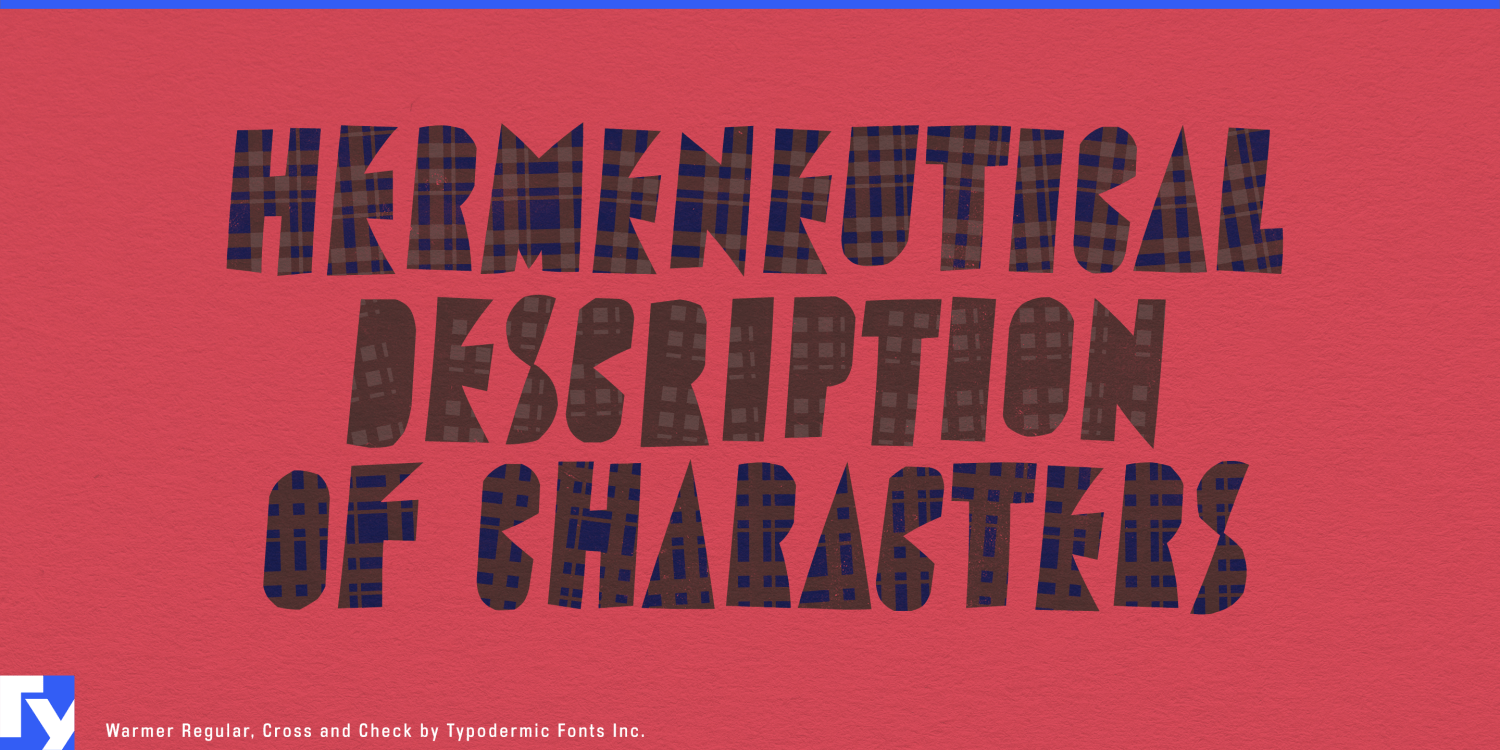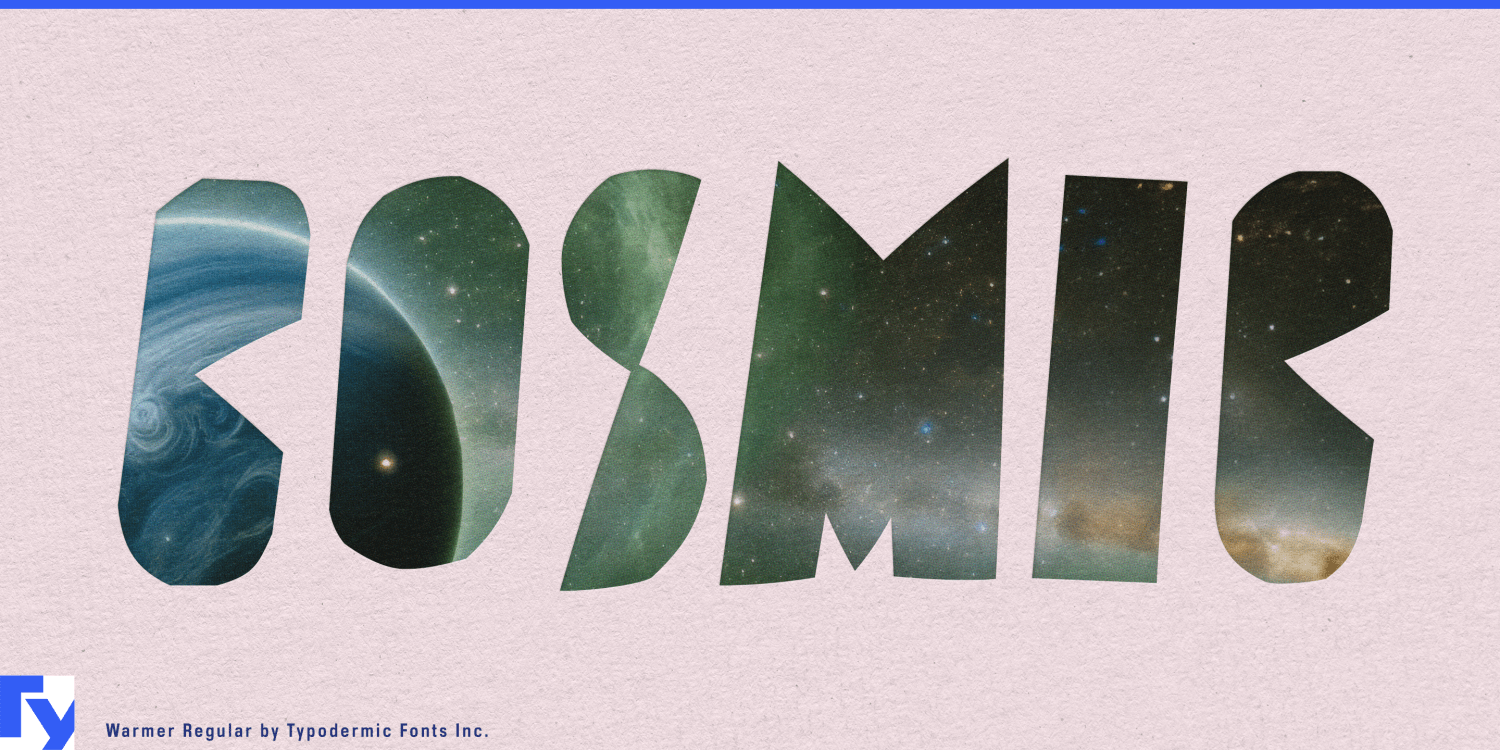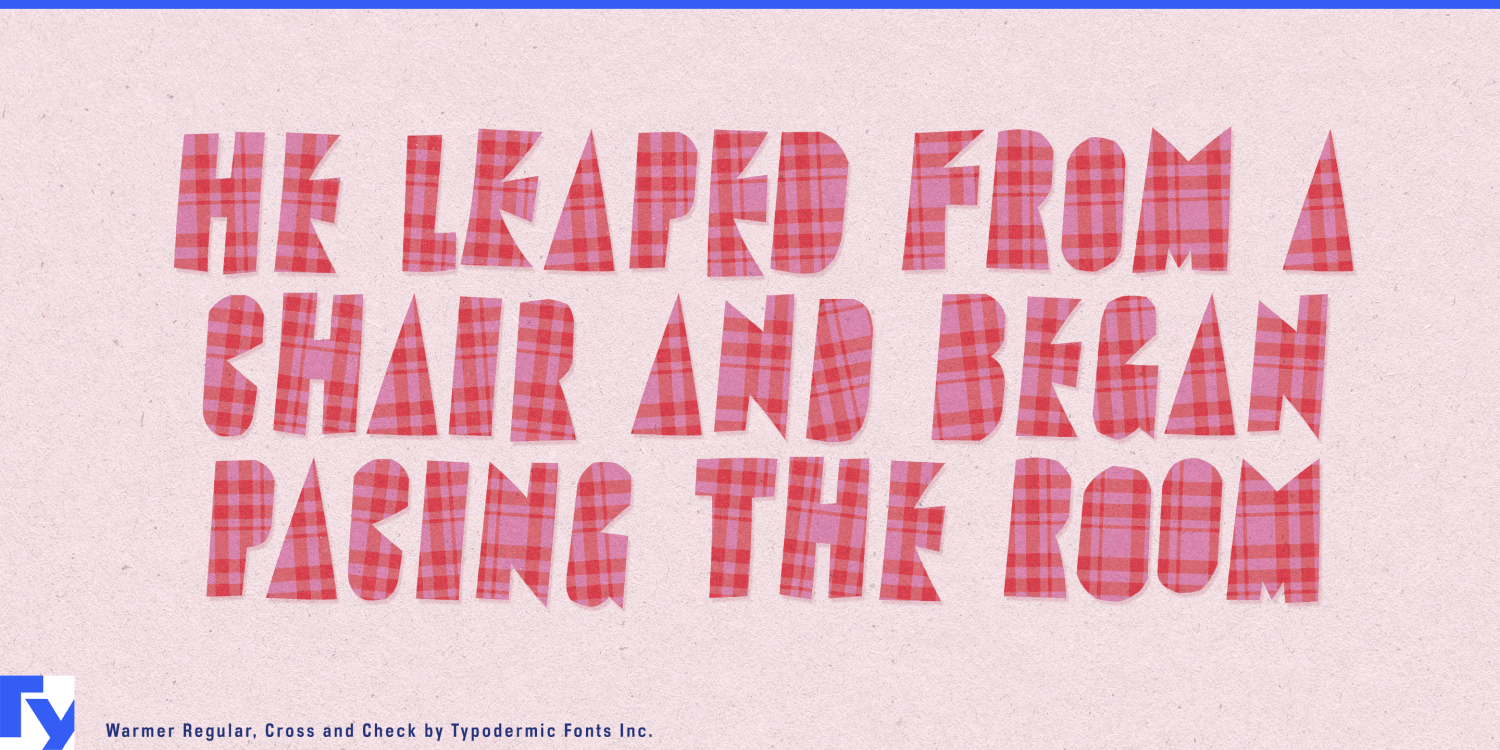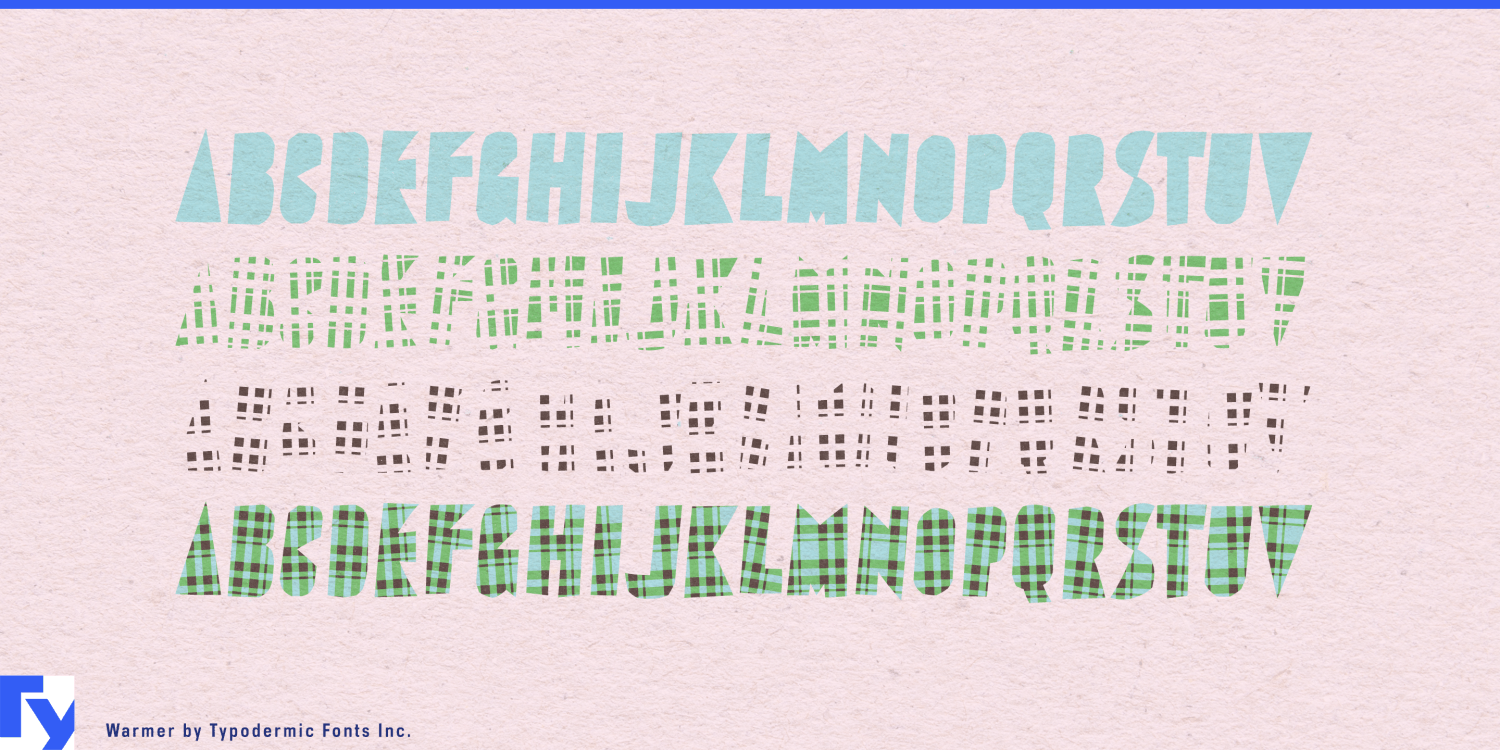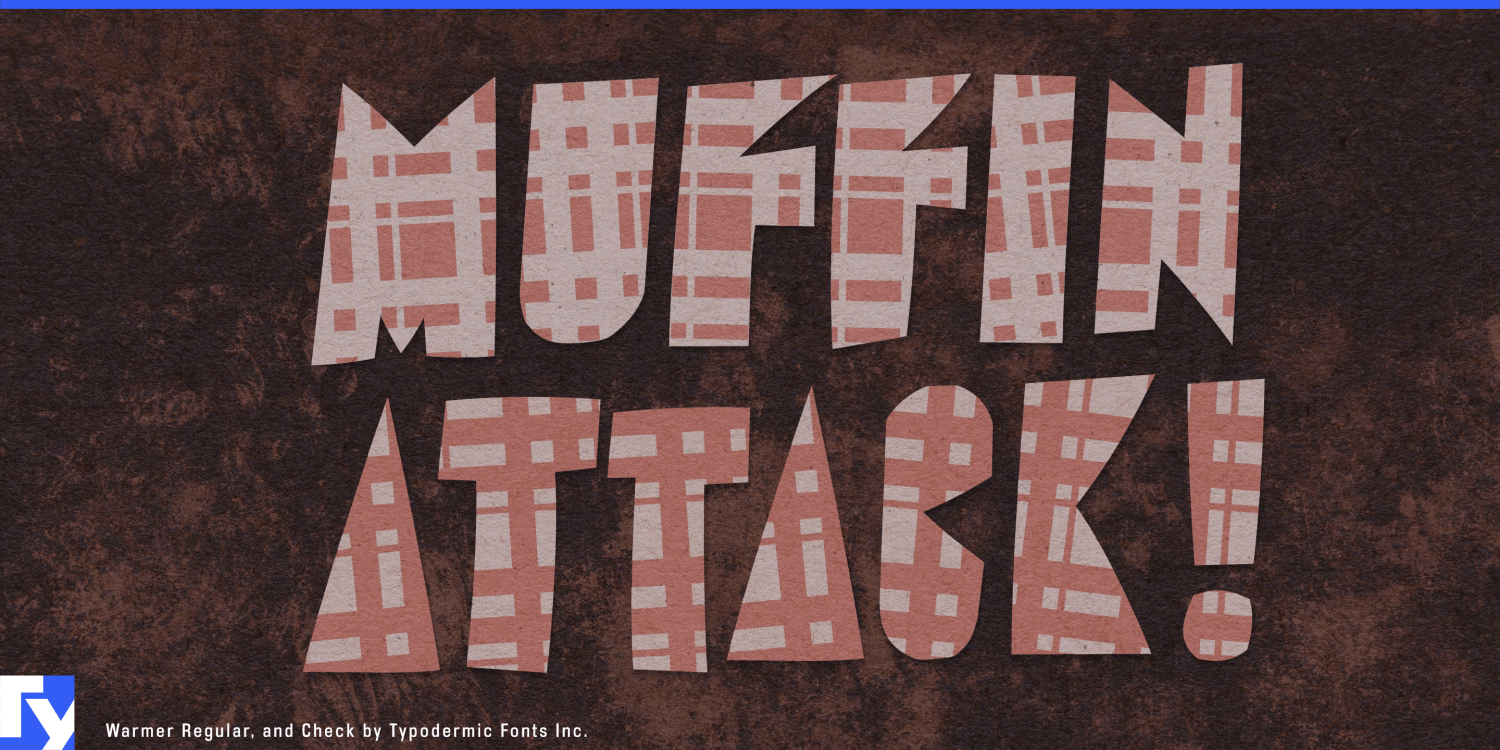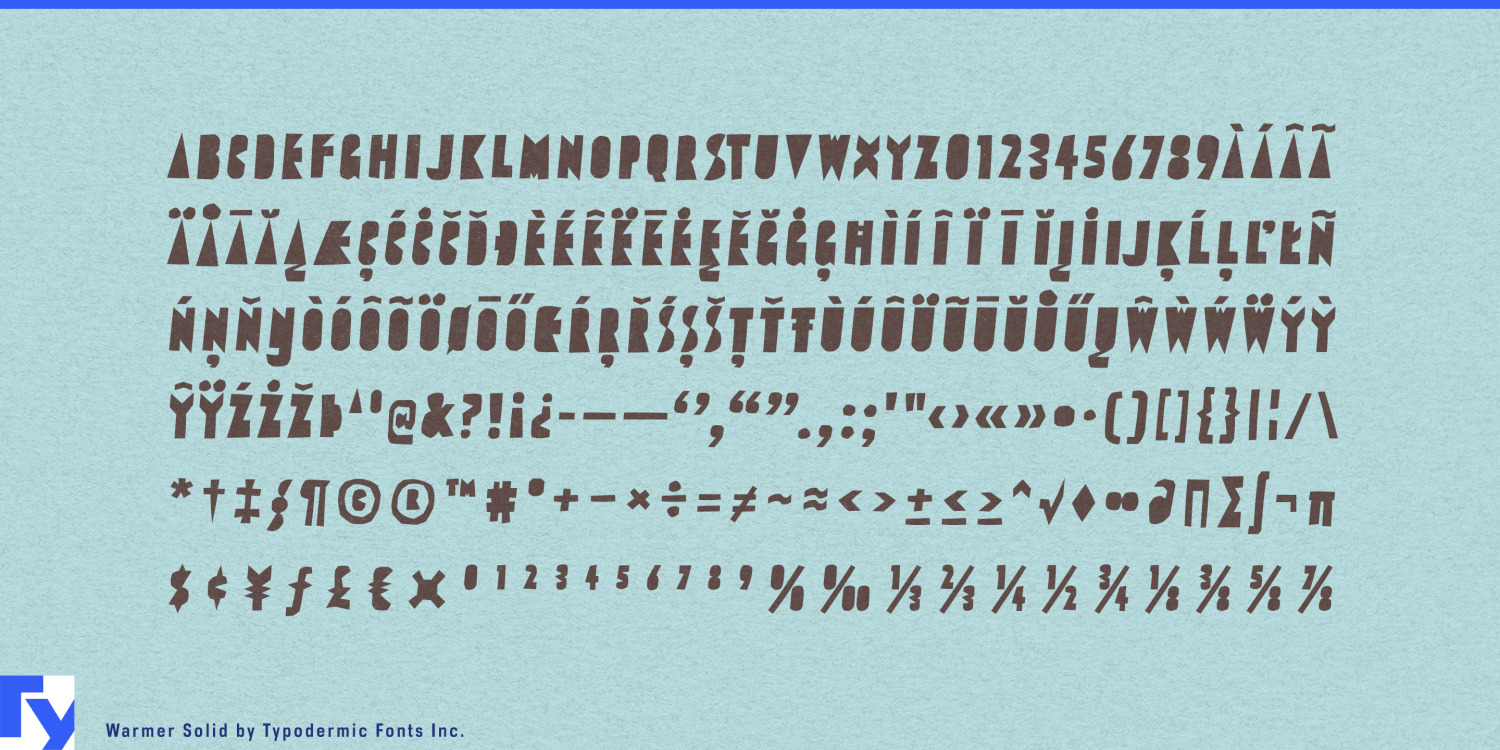
Warmer
Font Family by Typodermic
Plaid is easy to add to lettering and surprisingly hard to make convincing. Drop a check pattern inside an ordinary font and it often looks applied afterward, with the letters and textile having little to do with one another. Warmer takes a more integrated approach. Its Solid style supplies narrow, counterless display lettering; companion Cross and Check layers stack with it to build a woven pattern directly into the typography.
That makes Warmer especially useful for commercial textiles and interior collections. Upholstery manufacturers, contract-fabric companies, carpet and rug brands, wool blanket makers, acoustic-textile systems, and hospitality-fabric suppliers can use it for collection names, swatch-book covers, sample boxes, showroom walls, trade-fair graphics, product launches, and campaign headlines. Here the plaid is more than decoration; the typography participates in the same material language as the product being sold.
Apparel provides another natural setting, particularly autumn and winter collections built around checks, wool, flannel, and substantial fabrics. Overshirts, blanket jackets, wool coats, checked tailoring, scarves, heritage workwear, and plaid accessories can use Warmer for collection titles, shop windows, hangtags, shopping bags, lookbook covers, ecommerce campaigns, and limited-edition packaging. The Solid style can establish the broader identity while the layered versions turn the textile connection up when needed.
Mountain hospitality gives that material quality an environment of its own. Ski hotels, alpine resorts, mountain lodges, après-ski bars, winter restaurants, and cabin properties can use Warmer for seasonal campaigns, restaurant promotions, winter packages, resort merchandise, event graphics, and gift-shop products without relying on snowflakes, fir trees, or crossed skis to establish the mood.
The same logic works for outdoor and heritage soft goods such as wool overshirts, fleece, insulated vests, camp blankets, canvas bags, cold-weather accessories, and durable workwear. Seasonal retail and premium gift packaging are another strong fit: department-store winter campaigns, biscuit tins, cocoa collections, coffee gift sets, blanket-and-homeware promotions, and cold-weather subscription boxes can bring plaid directly into the typography instead of treating it as background decoration.
Warmer’s underlying alphabet grew from narrow, counterless lettering found on vintage Japanese rock-and-roll records, giving the Solid style a graphic life beyond textile effects. The layered construction lets designers move between simple display lettering and an integrated check pattern without changing typographic systems.
Warmer Solid
Warmer Check
Warmer Cross